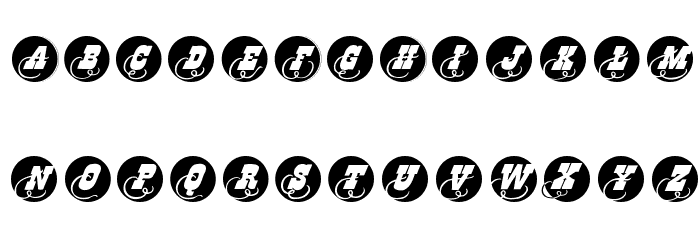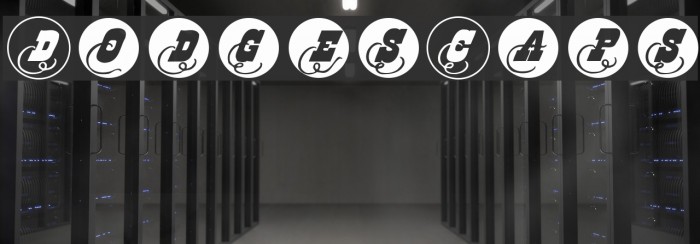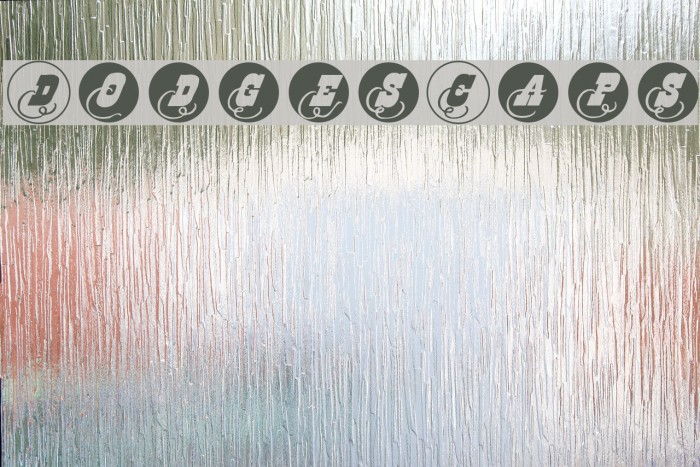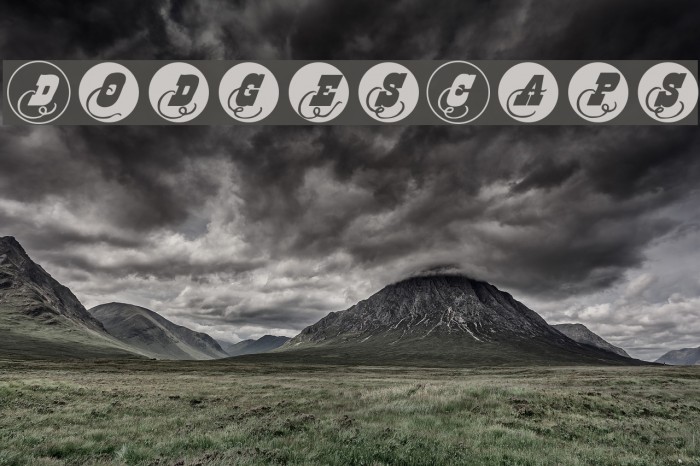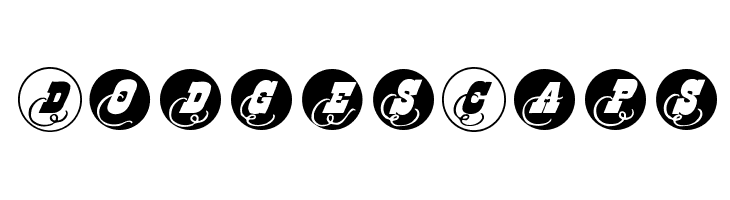
DodgesCaps Font
This font features bold, uppercase letters encased in circular shapes, creating a striking and dynamic appearance. The letters are designed with a shadow effect, adding depth and a three-dimensional look. The style is reminiscent of vintage signage, with a playful yet sophisticated flair. Each character is distinct, with sharp angles and smooth curves, making it highly legible while maintaining a decorative quality. The font's unique presentation makes it ideal for projects that require a bold statement, such as logos, posters, or branding materials.
Bold, uppercase letters with shadow effects in circular shapes, offering a vintage and decorative style.
- Proposed Projects: Ideal for logos, posters, branding materials, and any design requiring a bold, vintage aesthetic.
- Overall Style: Vintage
- Use Case: Logos, Posters, Branding